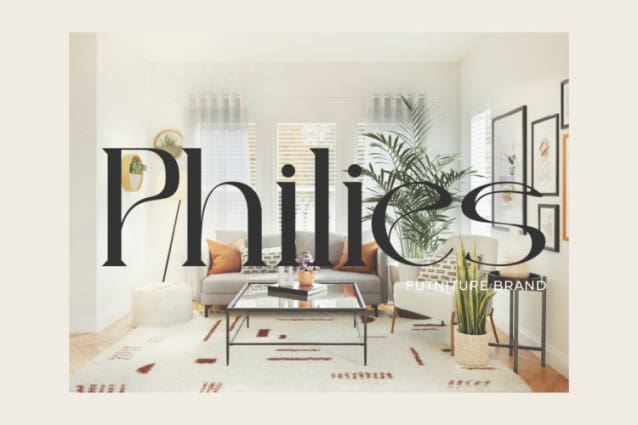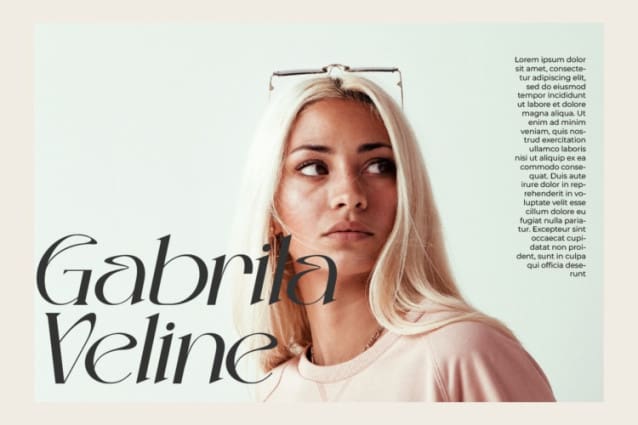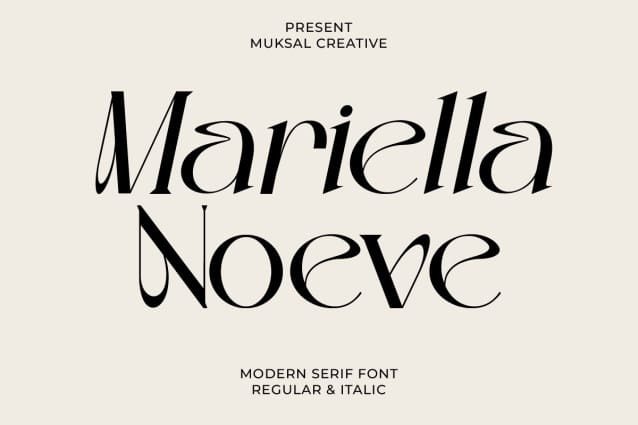
Mariella Noeve Font
Mariella Noeve Font is a modern-style font that combines serif elements with a contemporary touch. With its clean and elegant design, this font offers two main styles: regular and italic. Each letter in the Mariella Noeve font is meticulously crafted to convey a professional and modern impression in any design. The sophistication of this serif font makes it suitable for various design projects, including modern-themed branding logos. With its clarity and readability, MariellaNoeve is the perfect choice for enhancing the appearance and impact of any design